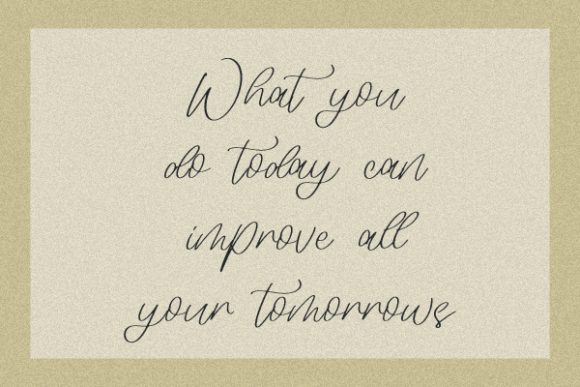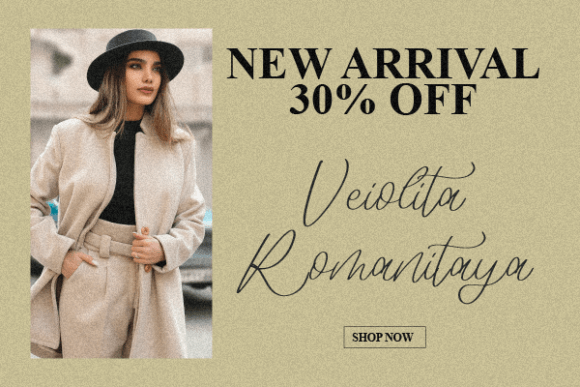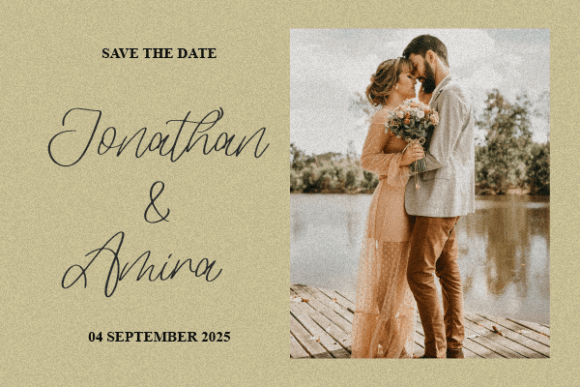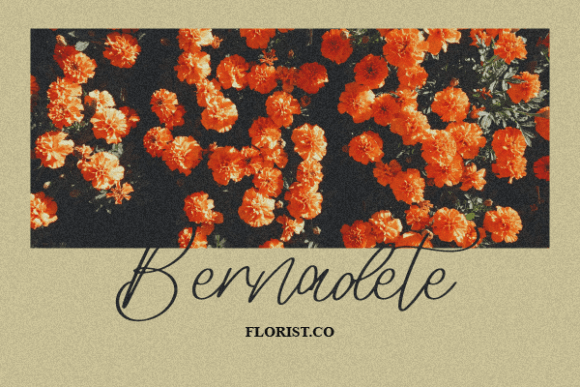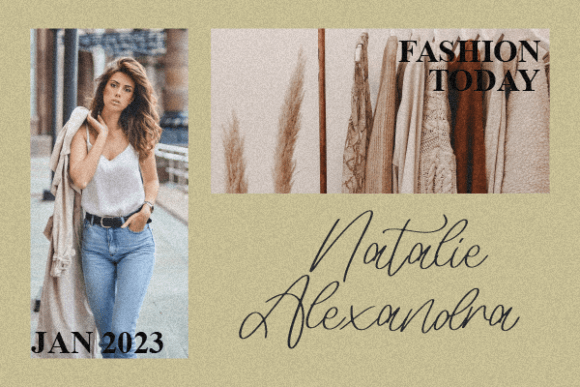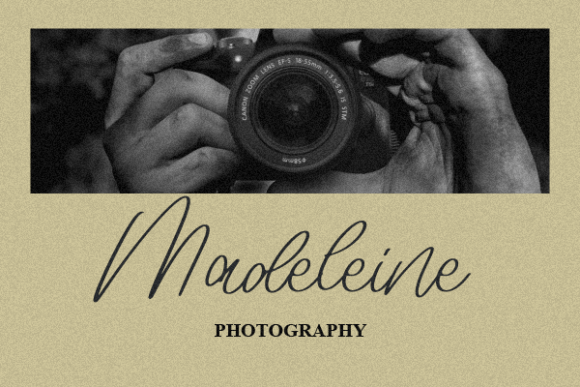
Introduction to Margaret Nicola Font Font
Fonts play a crucial role in design, and the Margaret Nicola Font font is a typeface that brings both character and versatility to any project. Whether you’re working on a branding project, a website, or a print design, the Margaret Nicola Font font offers a unique style that can elevate your work.
Margaret Nicola is a new modern calligraphy font with its own unique flow and elegant personality.
Is suitable for all your design project needs such as logo design, branding, covers, posters, and more .
Key Features of Margaret Nicola Font Font
Why Choose Margaret Nicola Font Font?
The Margaret Nicola Font font is more than just a typeface – it’s a design tool that helps you communicate your message with style and clarity. Its unique character set and versatile design make it suitable for a wide range of applications, from elegant invitations to bold headlines.
With its carefully crafted letterforms and balanced proportions, the Margaret Nicola Font font ensures readability and visual appeal across all mediums.
What makes Margaret Nicola Font font special?
The Margaret Nicola Font font stands out with its unique design, exceptional readability, and versatility across various design applications.